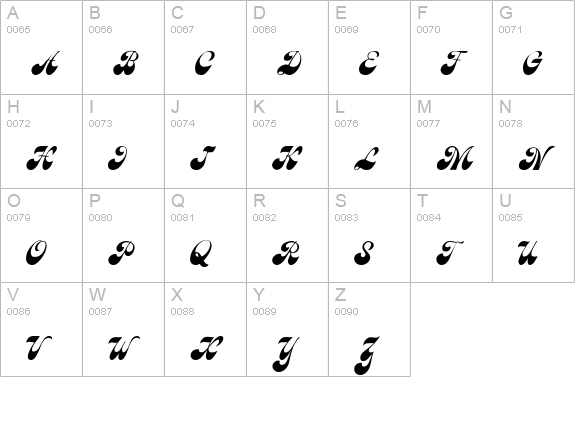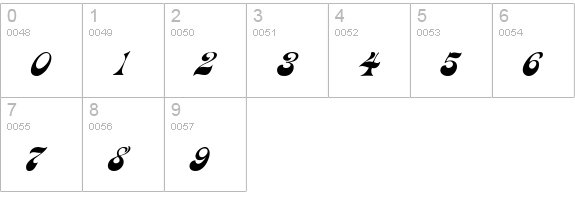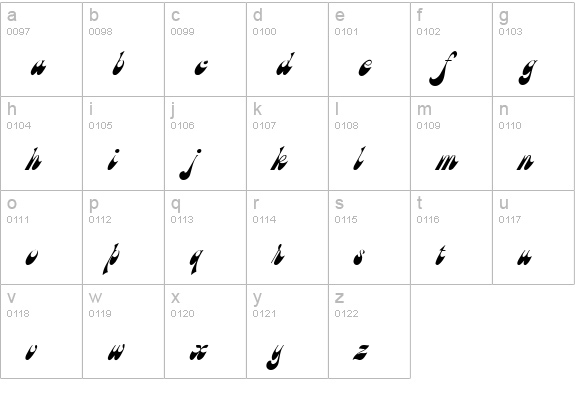
Brandy MF Script font is a versatile and elegant typeface that exudes a sense of sophistication and charm. With its delicate curves and flowing lines, this script font is perfect for adding a touch of class to any design project. Whether you're working on invitations, signage, or branding materials, Brandy MF Script will bring a sense of timeless beauty to your work. This font is not only beautiful but also versatile, making it suitable for a wide range of design applications. Its classic yet modern style makes it perfect for both formal and casual projects. Whether you're designing wedding invitations, greeting cards, or logos, Brandy MF Script will add a touch of elegance and refinement to your creations. The best part? Brandy MF Script font is available for free download at FontsMarket.com. So you can easily add this stunning typeface to your design arsenal without breaking the bank. Don't miss out on the opportunity to elevate your designs with the beauty and grace of Brandy MF Script font. Download it today and let your creativity shine!